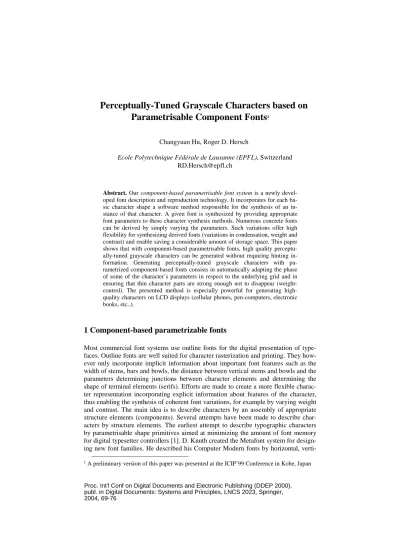
Perceptually-Tuned Grayscale Characters based on
Parametrisable Component Fonts
Abstract. Our component-based parametrisable font system is a newly
devel-oped font description and reproduction technology. It incorporates for each ba-sic character shape a software method responsible for the synthesis of an in-stance of that character. A given font is synthesized by providing appropriate font parameters to these character synthesis methods. Numerous concrete fonts can be derived by simply varying the parameters. Such variations offer high flexibility for synthesizing derived fonts (variations in condensation, weight and contrast) and enable saving a considerable amount of storage space. This paper shows that with component-based parametrisable fonts, high quality perceptu-ally-tuned grayscale characters can be generated without requiring hinting in-formation. Generating perceptually-tuned grayscale characters with pa-rametrized component-based fonts consists in automatically adapting the phase of some of the character’s parameters in respect to the underlying grid and in ensuring that thin character parts are strong enough not to disappear (weight-control). The presented method is especially powerful for generating high-quality characters on LCD displays (cellular phones, pen-computers, electronic books, etc..).
1 Component-based parametrizable fonts
Most commercial font systems use outline fonts for the digital presentation of type-faces. Outline fonts are well suited for character rasterization and printing. They how-ever only incorporate implicit information about important font features such as the width of stems, bars and bowls, the distance between vertical stems and bowls and the parameters determining junctions between character elements and determining the shape of terminal elements (serifs). Efforts are made to create a more flexible charac-ter representation incorporating explicit information about features of the characcharac-ter, thus enabling the synthesis of coherent font variations, for example by varying weight and contrast. The main idea is to describe characters by an assembly of appropriate structure elements (components). Several attempts have been made to describe char-acters by structure elements. The earliest attempt to describe typographic charchar-acters by parametrisable shape primitives aimed at minimizing the amount of font memory for digital typesetter controllers [1]. D. Knuth created the Metafont system for design-ing new font families. He described his Computer Modern fonts by horizontal,
cal and diagonal strokes as well as by round parts [6]. These strokes and round parts are given by sequences of pen positions and orientations. More recently, Bauermeister et al. created the Infinifont system enabling resynthesizing an existing font from uni-versal font generation rules and from parametric data specific to that font [7][10]. Our own efforts [12] aimed at defining character components suitable for the generation of existing and of derived typographic fonts, incorporating variations in condensation, weight and contrast.
Components Assembling Trimmed or outlined top-serif
serif serif sweep
stem
Fig. 1. Building a character with components
Fig. 1 shows a character assembled from structure elements, i.e. the two vertical stems are synthesized by the component named stem, the round arch is synthesized by two connecting sweep components, and the terminals are synthesized respectively by the serif and top-serif components. For the round character structure elements which are similar to a whole or a half of letter “o”, we synthesize them by the loop and respec-tively the half-loop components (letters “o” and “b” in Fig. 2).
ascender x-height baseline descender x0 vert. curve width w3 optcrr wSS wRL hor. curve width w2 vert. stem width w1 w4 x1 x0 x1 x0wSCx1 narrow hor. curve width w4 w3 w4
Fig. 2. Characters generated by filtering and resampling compared with manually edited
gray-scale characters
In our component-based font parametrization method, the shape of a character is syn-thesized by synthesizing the shape of each component from font parameters. Font pa-rameters have clearly defined typographical meanings (Fig. 2). They are used to de-scribe the characters’ typographical features, such as the character height alignment lines (reference lines), the widths of stems and arches, the metrics of serifs, the angles of junctions or slant serifs, etc. Some parameters are globally available and are ap-plied to all or to a group of several characters to ensure the coherence of a font, re-spectively the coherence of a group of parameters. Some parameters have only a local meaning for one specific character. The concrete values of parameters may be the
dis-tance between two points, the intermediate position (proportion) of one point between two other points, the angle of a junction or of a slant serif, etc.
Components are assembled according to a dependency order: the main components, such as the two vertical stems in letter “h” or the left stem and the right half-loop of letter “b”, are first placed according to a parameter controlling their horizontal dis-tance. The position of other components such as connecting sweeps and serifs are de-termined by their relationship to the previously placed main components. Such a con-struction of characters by components enables connection relationships between components to be maintained when modifying parameter values. Derived characters of varying condenstation, weight and contrast can therefore be obtained by modifying a suitable subset of parameters [12].
2 Perceptually-tuned grayscale fonts
In order to improve the display of text on limited resolution computer displays, re-searchers have tried to trade-off the lack of spatial resolution for an increased number of intensity levels [2], [3, 4]. Especially with respect to typographic text display on limited resolution CRT and LCD display devices, it has been shown that using gray-scale makes font dependent character features visible which disappear when display-ing text with bilevel characters. Though they can more accurately render font differ-ences, grayscale characters generated by filtering and resampling high-resolution bilevel master characters look rather fuzzy. Such characters do not have a high enough contrast along their horizontal and vertical edges and thin character parts tend to disappear. In addition, similar character parts (bars, stems, etc..) tend to look dis-similar.
Fig. 3. Characters generated by filtering and resampling compared with manually edited
gray-scale characters
a) box filter
b) manually edited
Different instances of similar character structure elements such as vertical bars or curved stems look dissimilar because they do not have similar intensity profiles (Fig.3a). This is due to the fact that the original bilevel master character incorporates frequencies well beyond the Nyquist limit (1/2 the resampling frequency) and that LCD displays are capable of displaying individual pixels as constant intensity squares of unit size, thereby enabling high intensity gradients between neighbouring pixels. The phase of character elements with respect to the target pixel grid has a strong im-pact on their intensity profiles, especially at small sizes and low resolution (Fig. 4a).